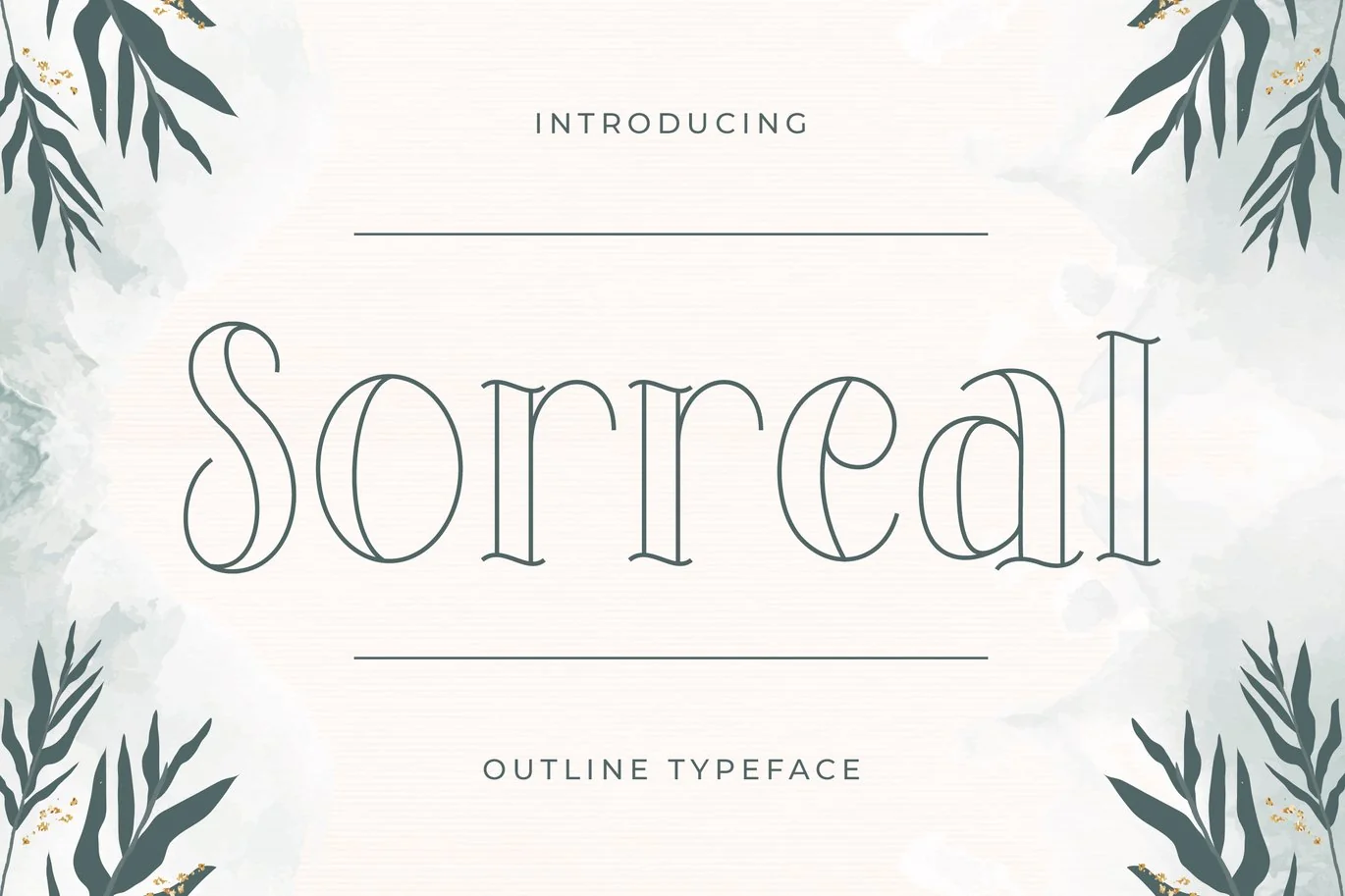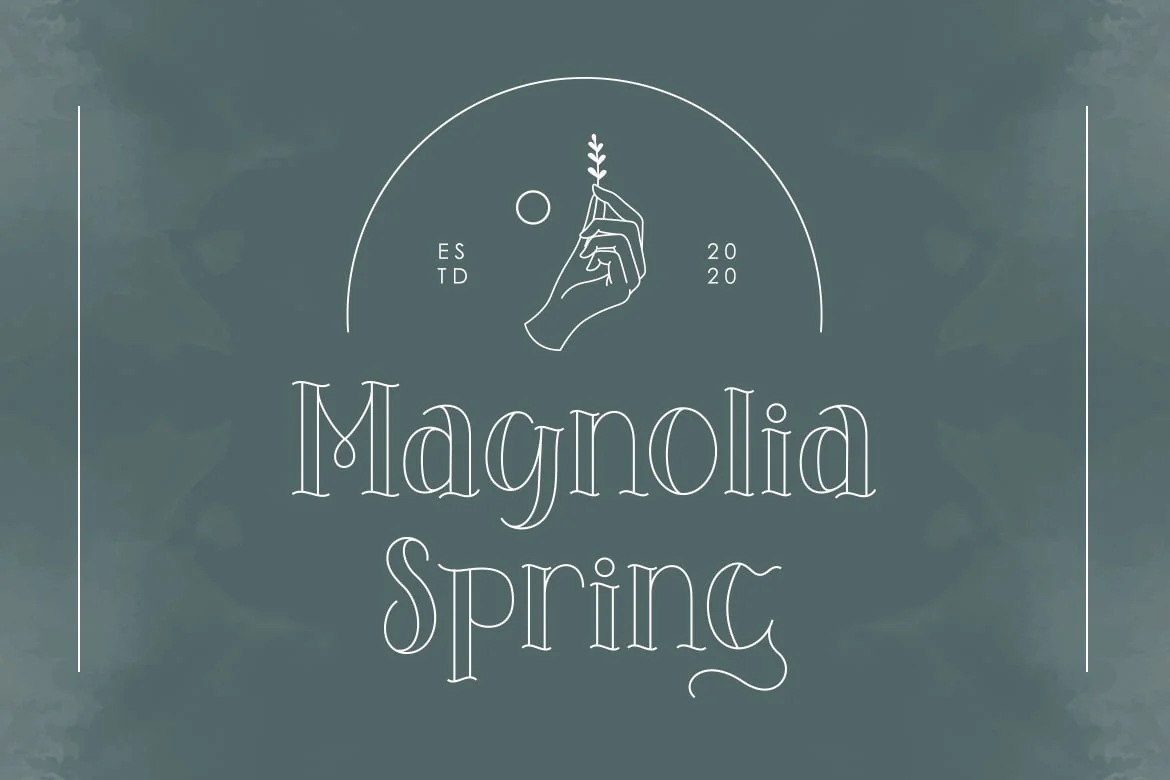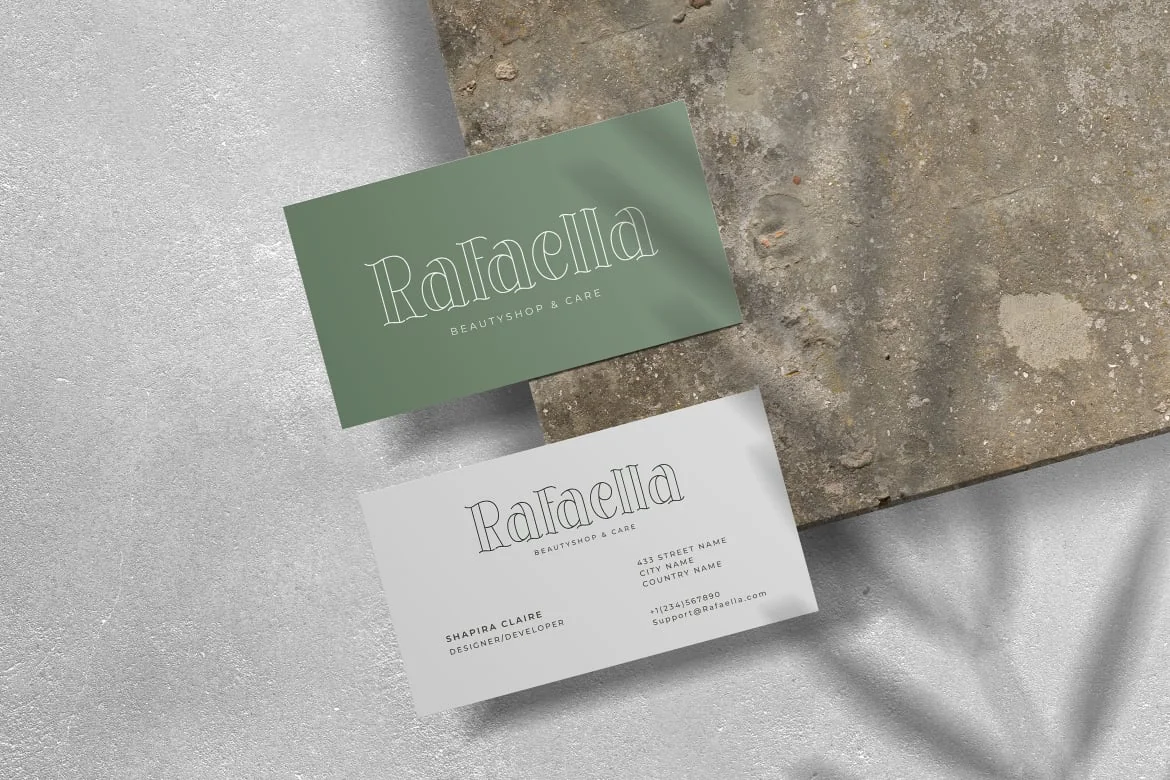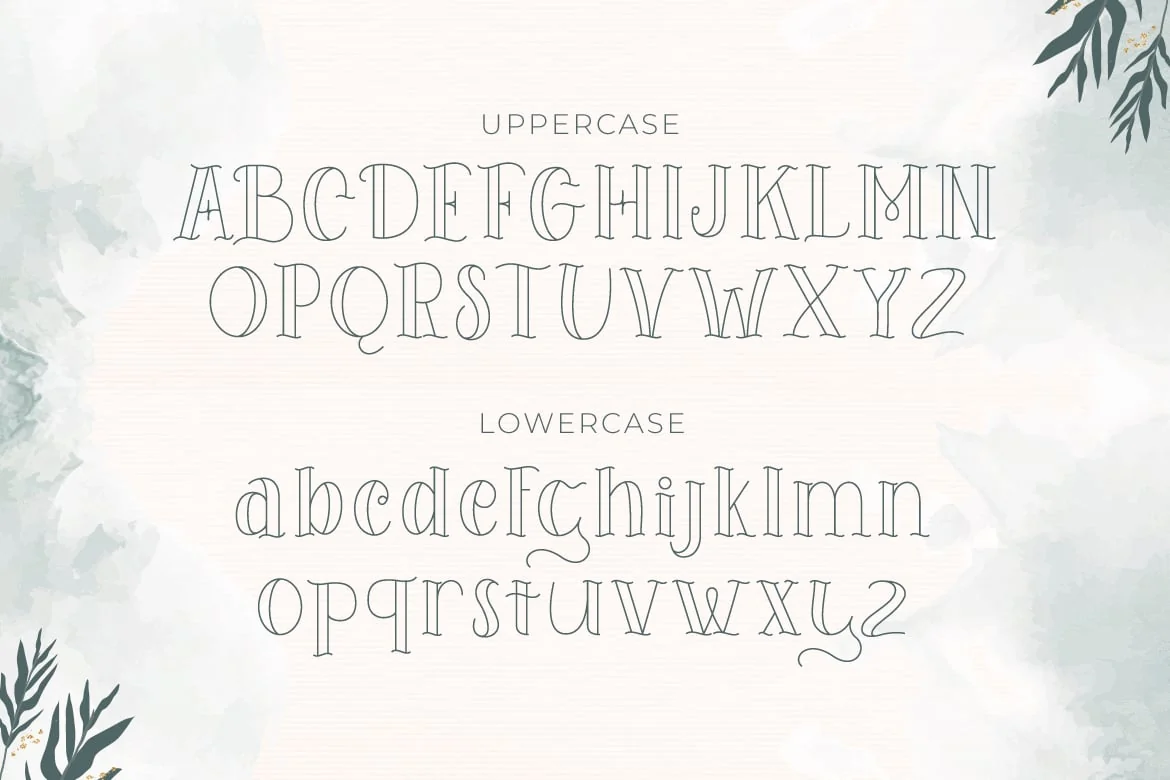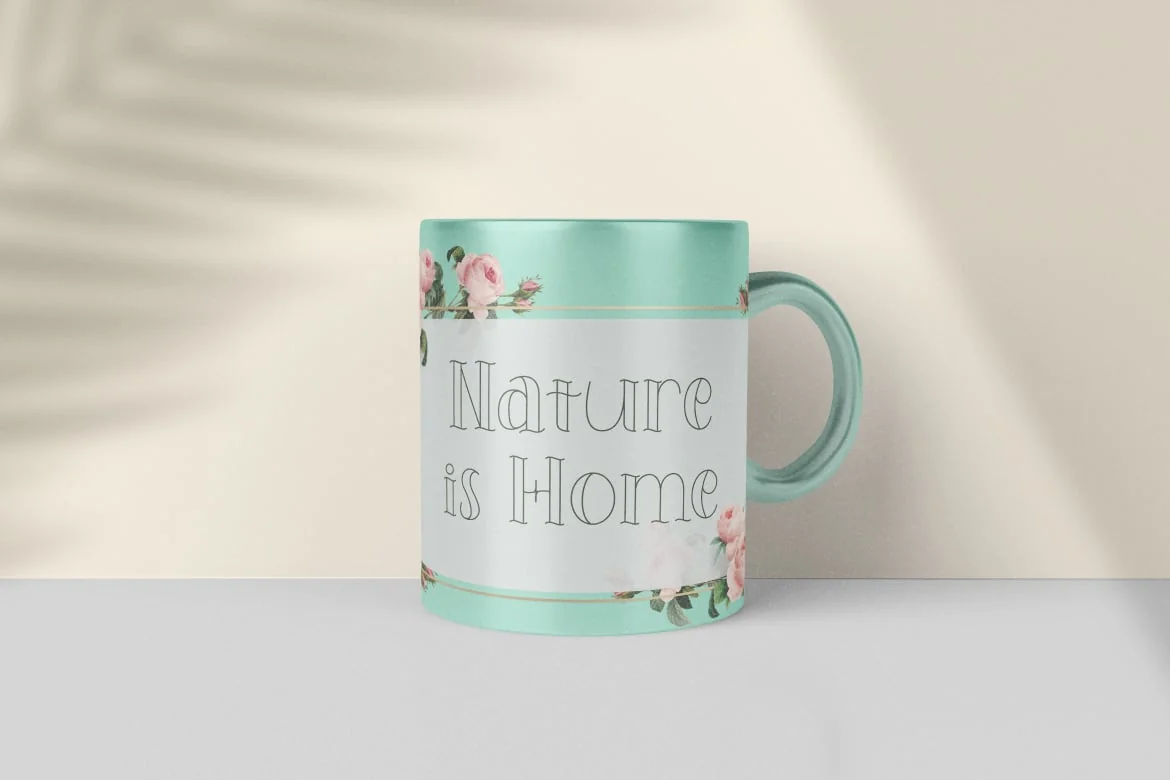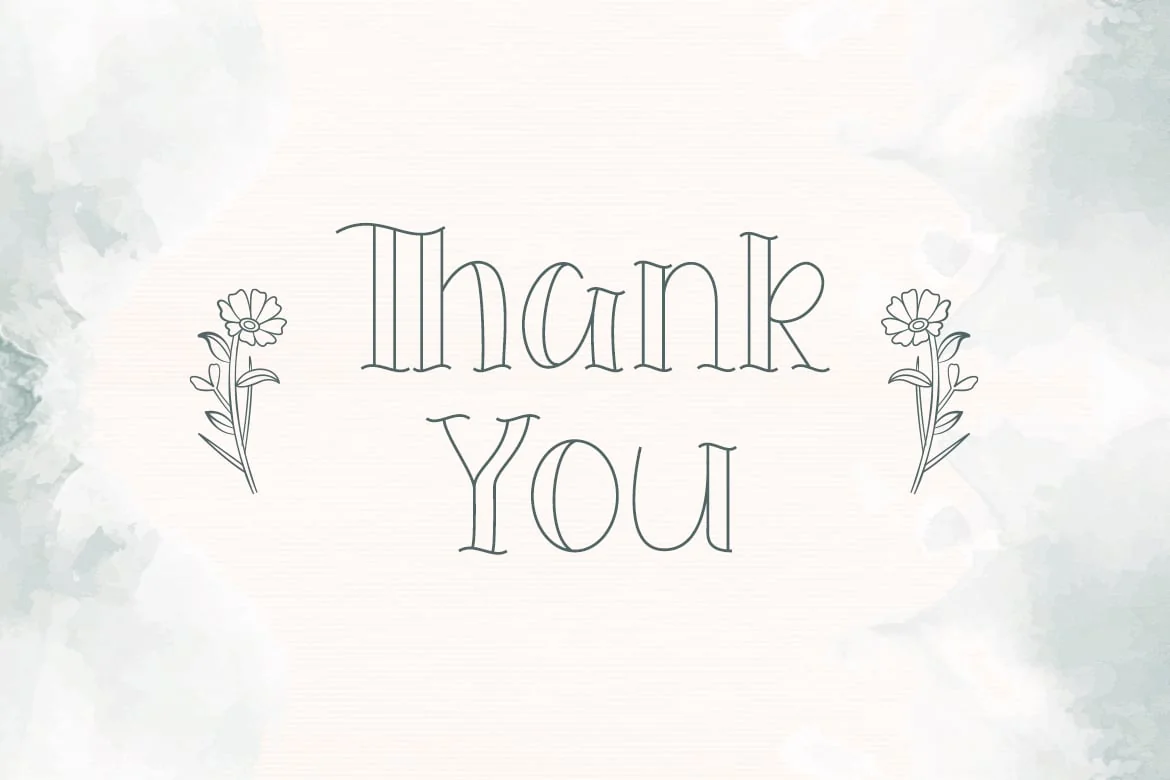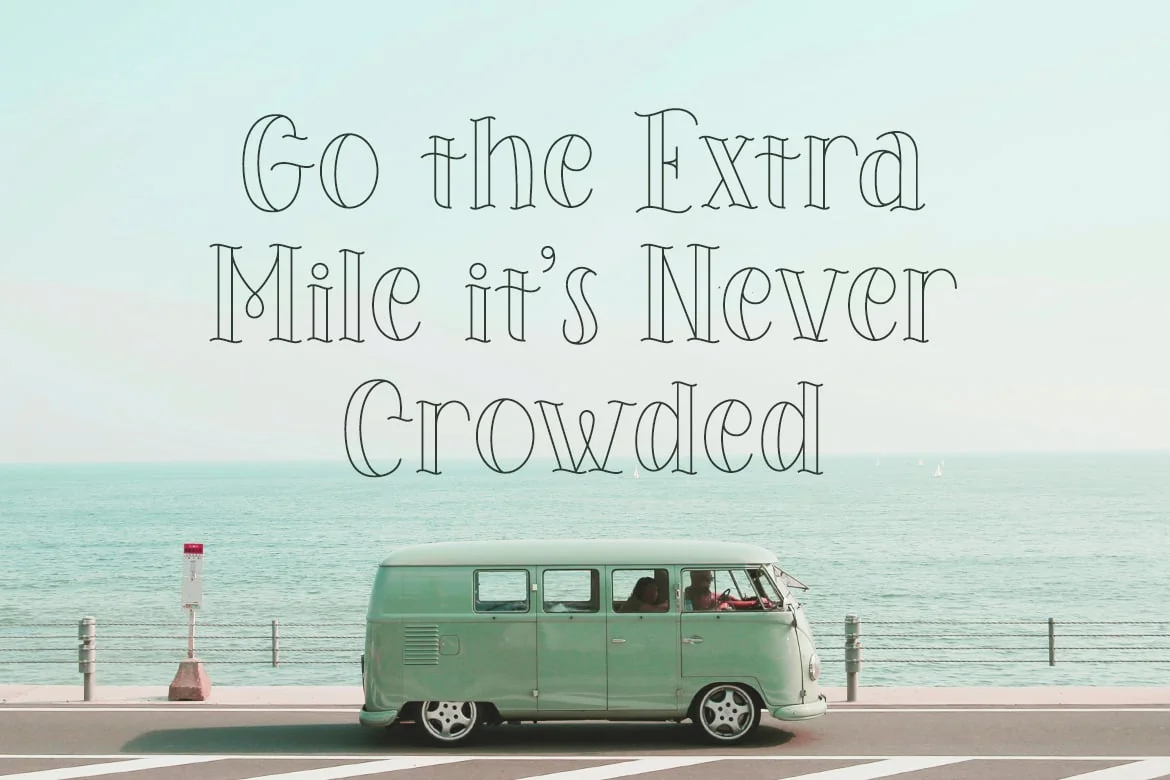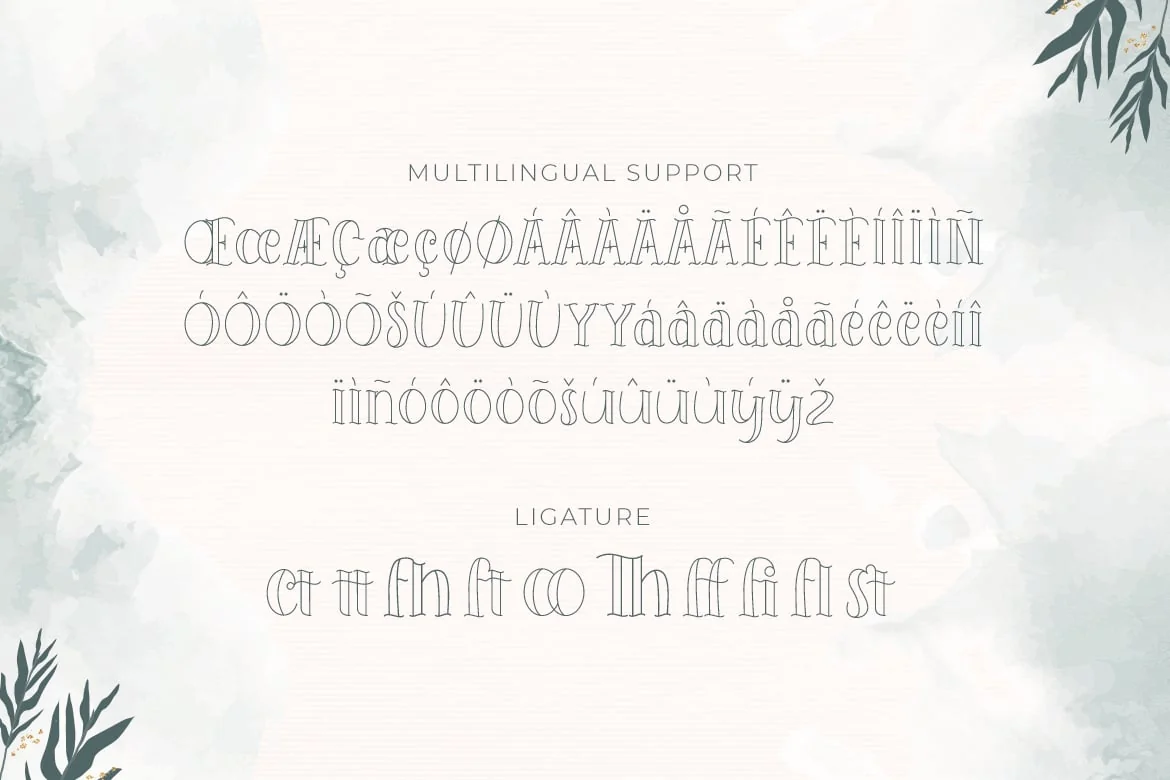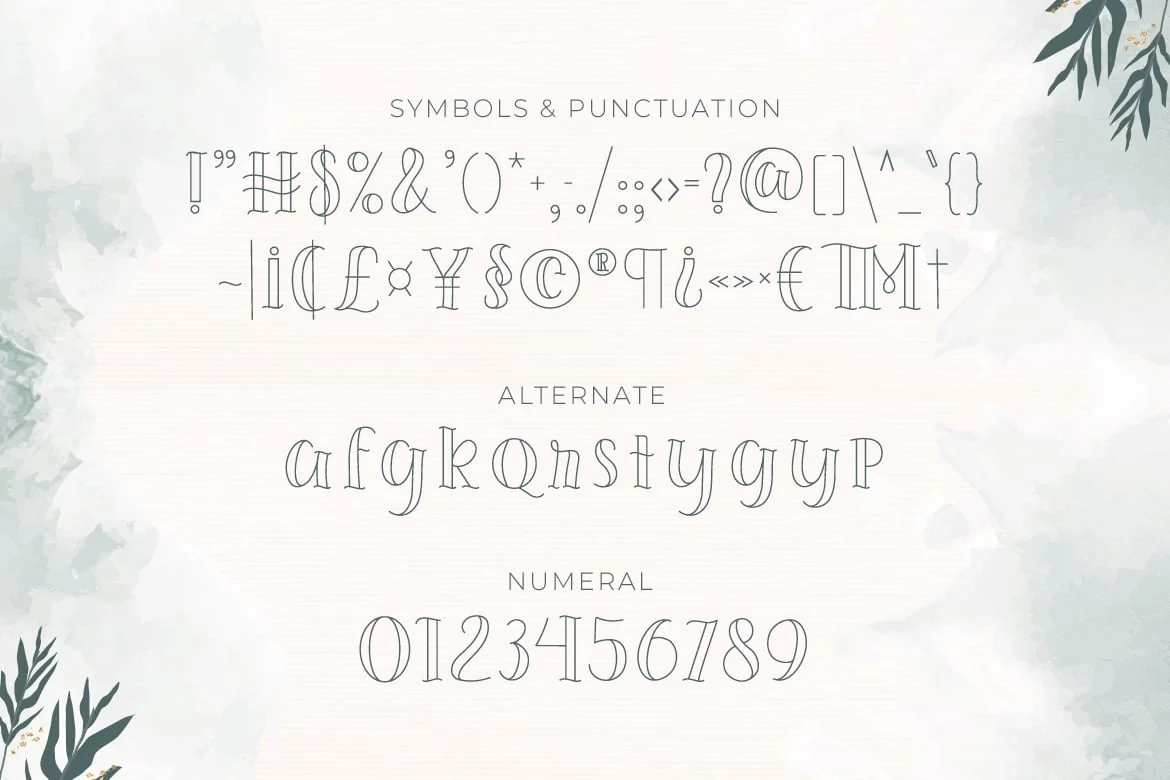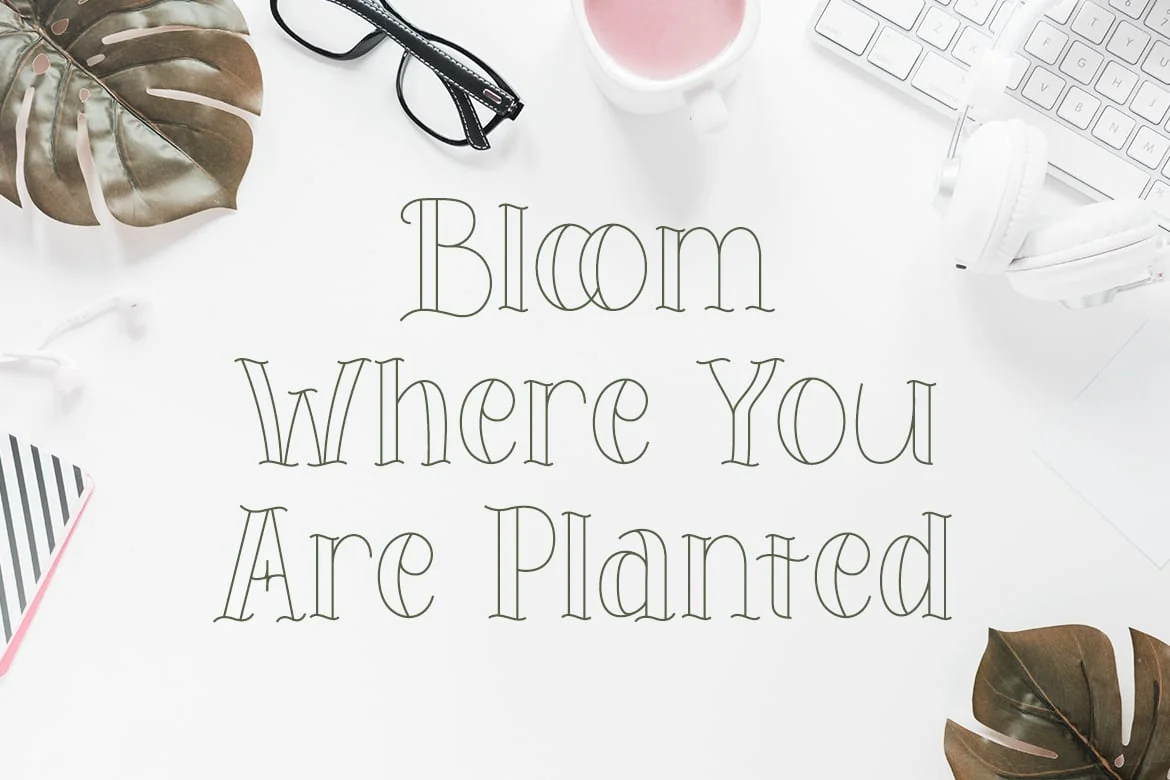
Sorreal – Outline Typeface
Sorreal is a cool, friendly and neat outlined display font.
It can be used for various purposes such as logos, wedding invitations, headings, letterhead, signage, labels, news, posters, badges and so much more.
- Symbols & Punctuation